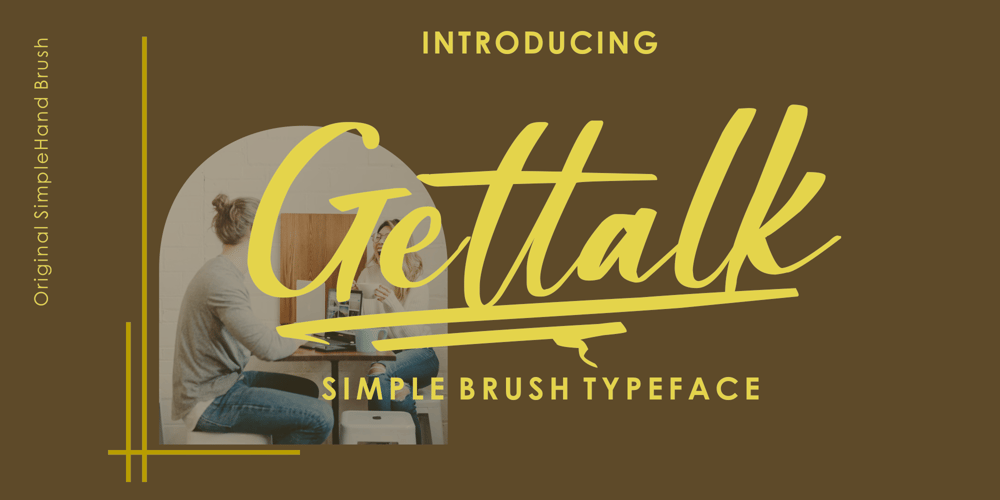
Gettalk
Gettalk font
Gettalk Font Family was designed by Zamjump and published by Zamjump. Gettalk contains 1 styles and family package options. Gettalk is a simple but unique brush font, there are standard ligatures and various lines that you can use for your design purposes, just by writing a__ (a underscore underscore) to n__ (n underscore underscore). Gettalk is perfect for Headlines, social media, invitations, business cards, photography, quotes, and any other needs you want. Because Gettalk is a font that is easy to pair with other fonts or stand alone.